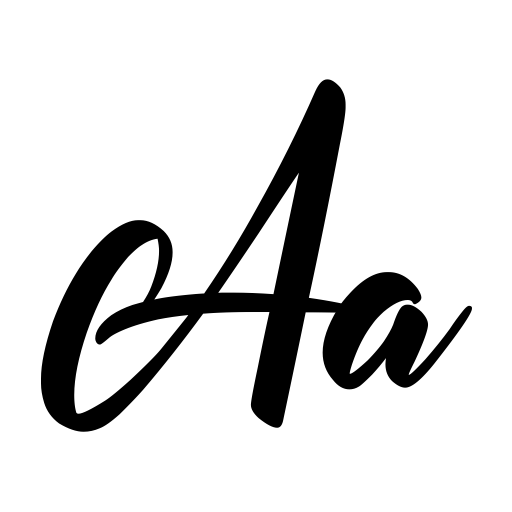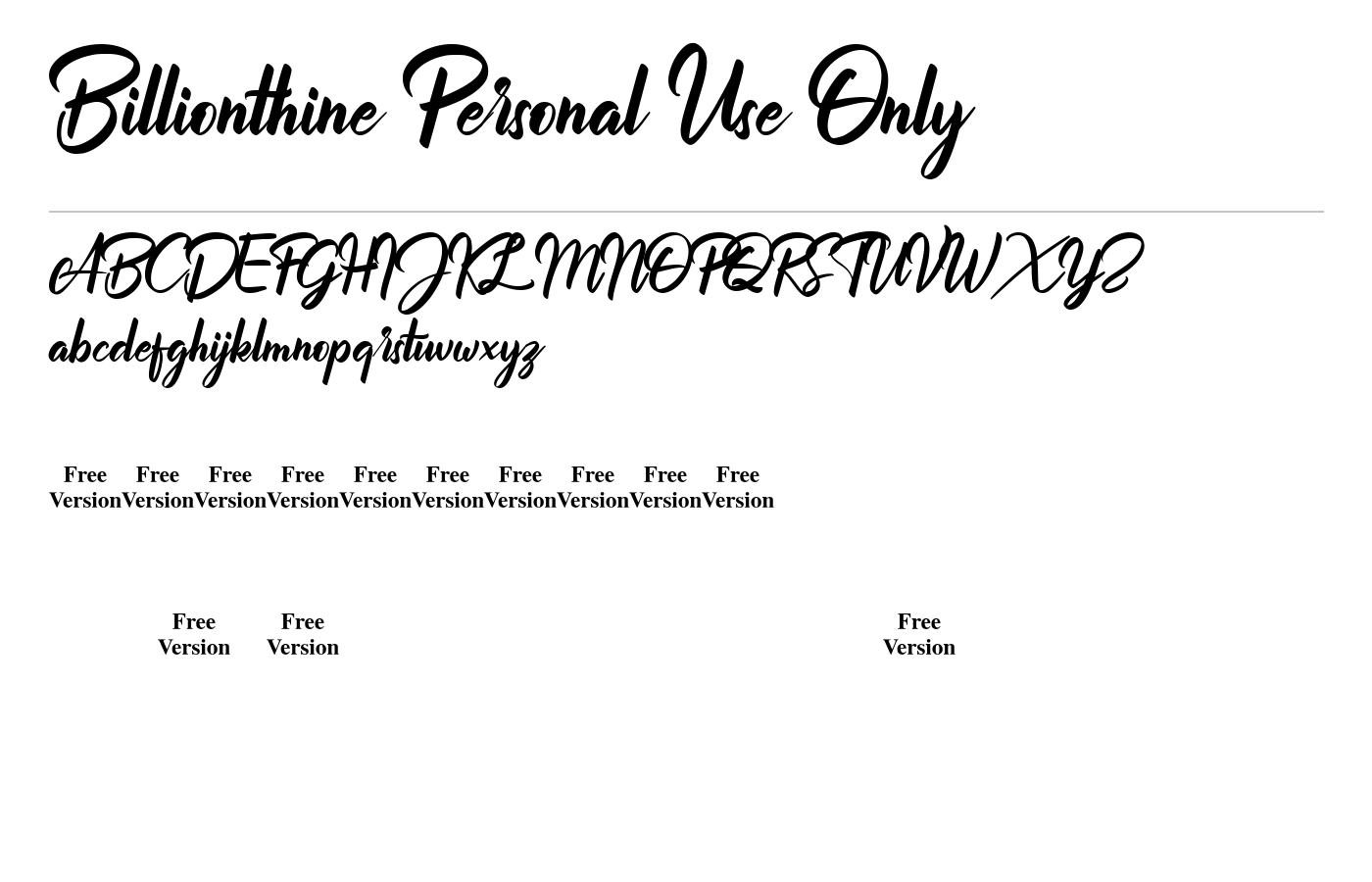
Billionthine Personal Use Only is an elegant script font with a smooth, flowing style that combines modern calligraphic charm with a casual touch. Its balanced strokes and slightly condensed, high-contrast letterforms make it perfect for adding a sophisticated yet approachable feel to invitations, branding, and headlines. This font works well in creative projects that seek to convey warmth and personality with a refined flair.
Billionthine Personal Use Only Font
About Billionthine Personal Use Only Font
| Font family | Billionthine Personal Use Only Font |
| Designer | Fuad Hasan |